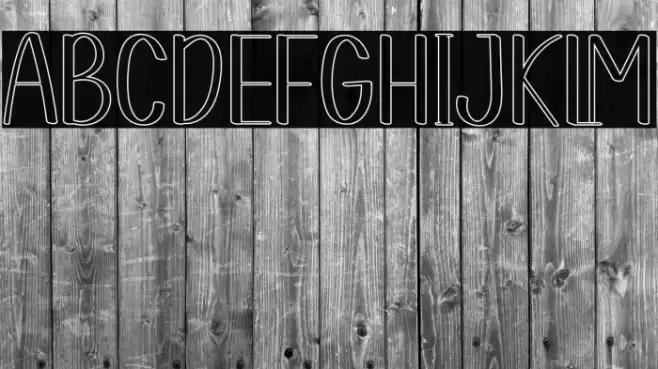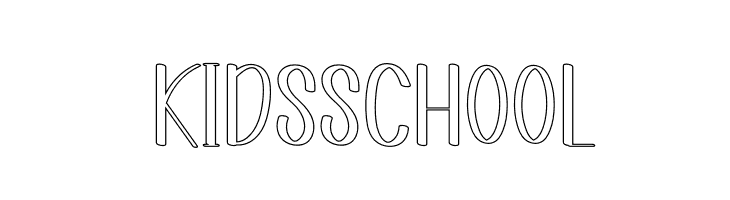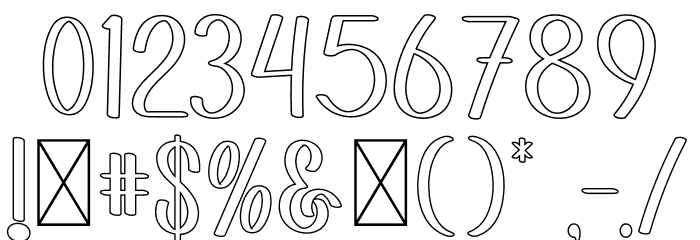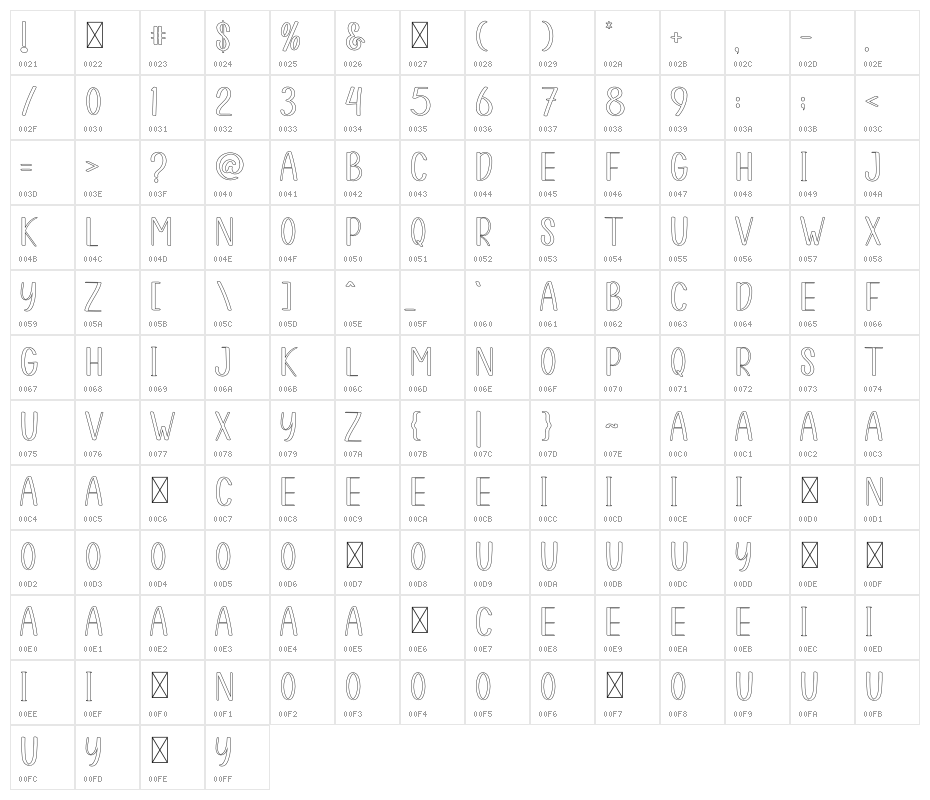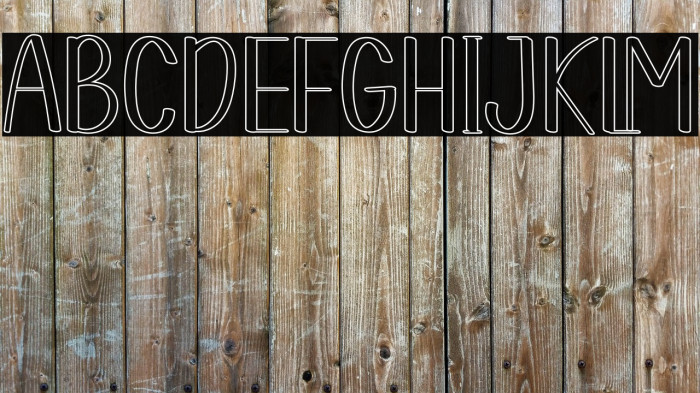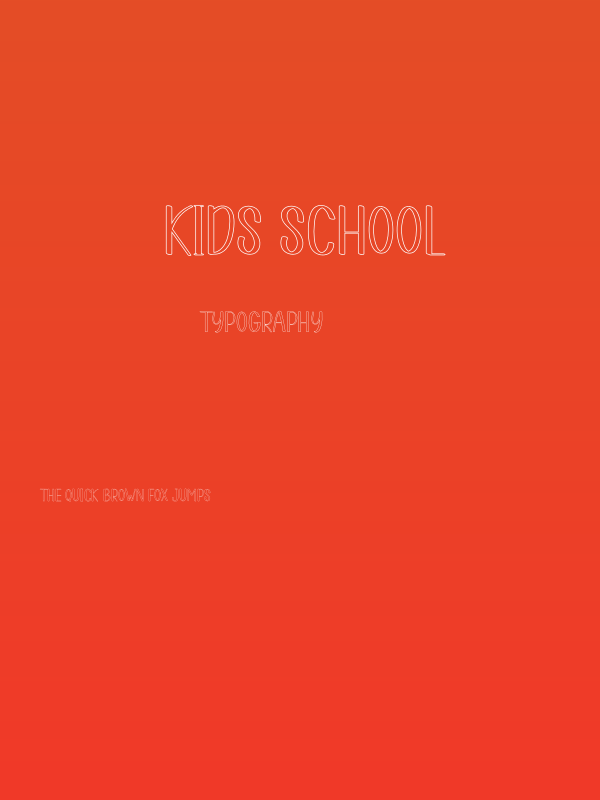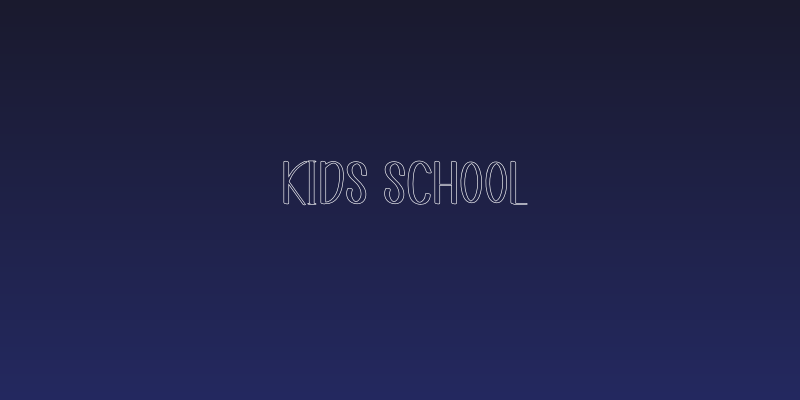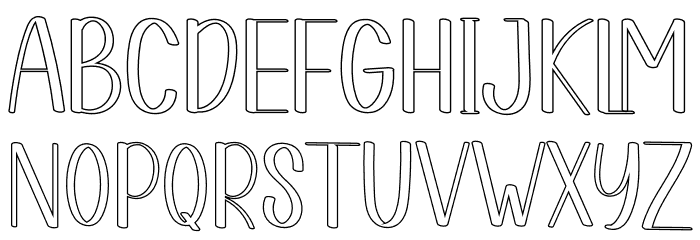
KIDS SCHOOL Font
KIDS SCHOOL Description
This playful and whimsical font features a hand-drawn, outlined style that evokes a sense of fun and creativity. The uppercase and lowercase letters are consistent in their thin, uniform line weight, giving them a cohesive appearance. The characters are slightly rounded, adding a friendly and approachable feel. The numbers and special characters maintain the same playful aesthetic, making them suitable for a variety of informal contexts. The font's design is reminiscent of children's handwriting, making it ideal for educational materials, children's books, or playful branding projects.
A playful, hand-drawn outlined font with a whimsical and friendly style from Cartoon fonts.
- Proposed Projects: Ideal for children's books, educational materials, playful branding, and creative projects.
- Overall Style: Playful
- Use Case: Headlines, Logos, Educational materials